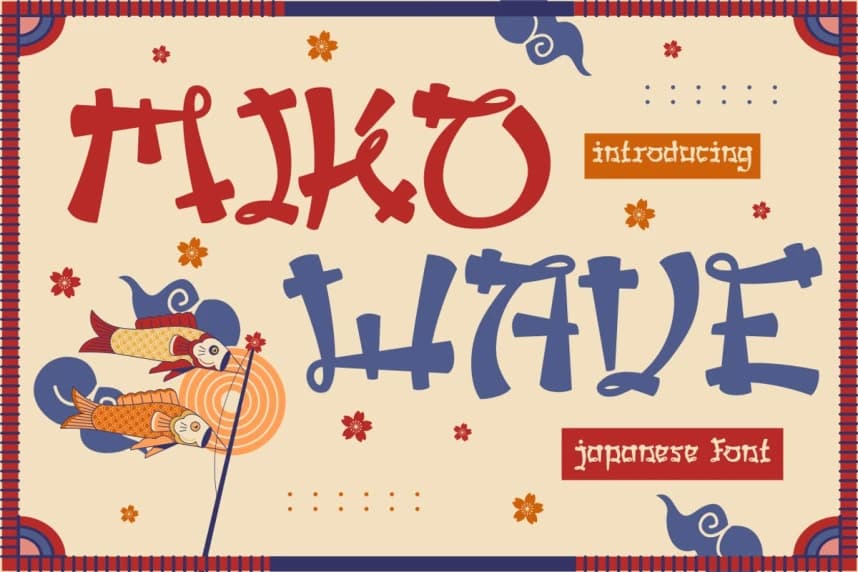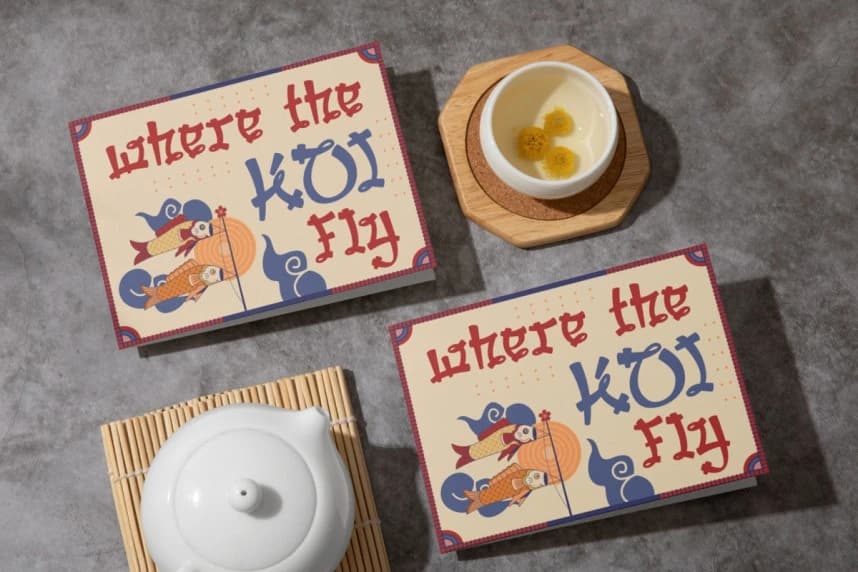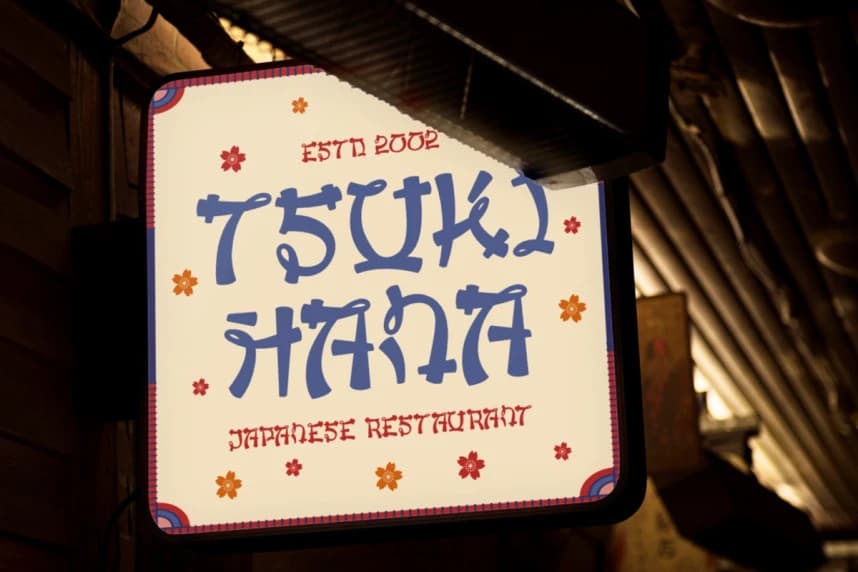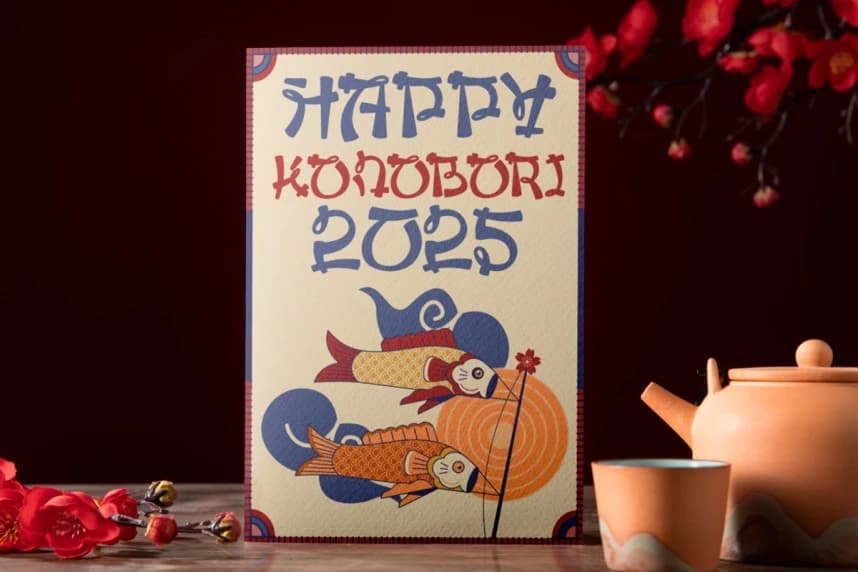
Miko Wave Font
Miko Wave Font is a unique Japanese-style display font inspired by traditional Asian calligraphy and playful modern twists. Each letterform combines bold strokes with soft curves, creating a balance between strength and elegance.